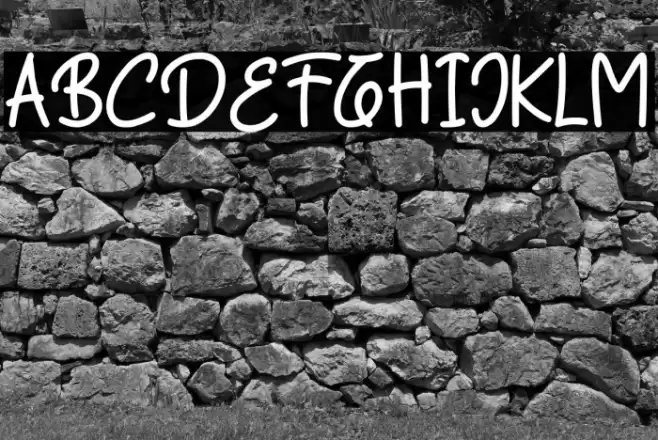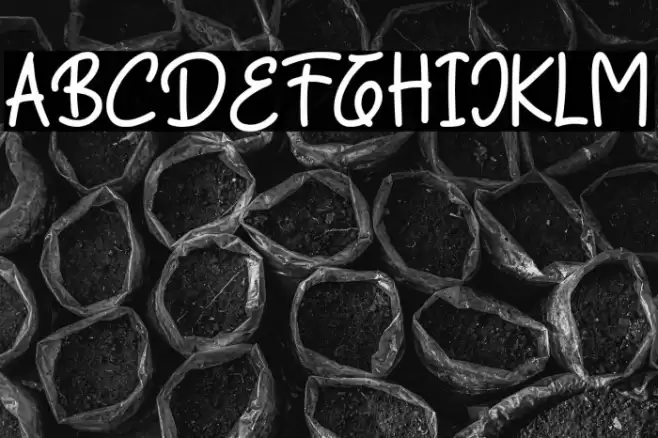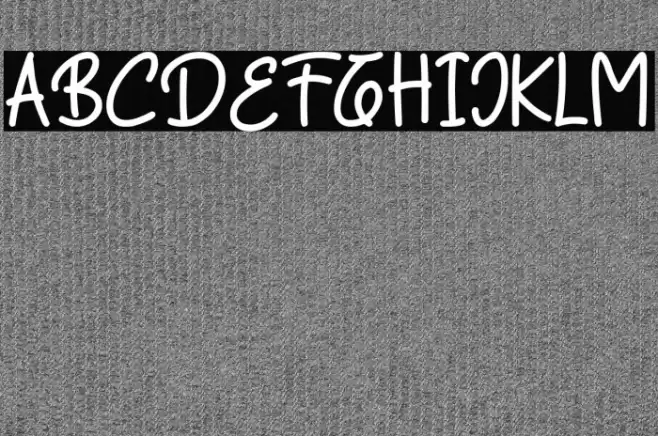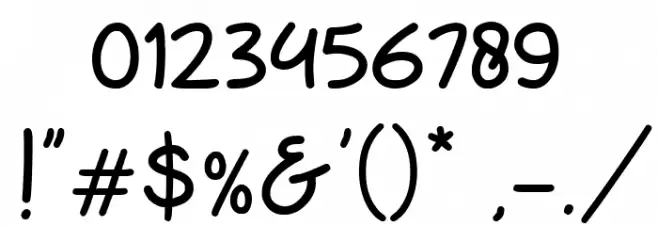
Tello Stick Font
Tello Stick Description
This playful and energetic font features a handwritten style with smooth, flowing curves and a casual feel. The letters are slightly slanted, giving a dynamic and lively appearance. The strokes are consistent in thickness, providing a uniform look across all characters. This font includes both uppercase and lowercase letters, numbers, and a variety of special characters, making it versatile for different uses. The overall design is approachable and friendly, perfect for projects that require a personal touch.
A playful handwritten font with smooth, flowing curves and a casual feel from Uncategorized fonts.
- Proposed Projects: Ideal for greeting cards, invitations, children's books, and playful branding.
- Overall Style: Casual
- Use Case: Logos, Invitations, Greeting Cards